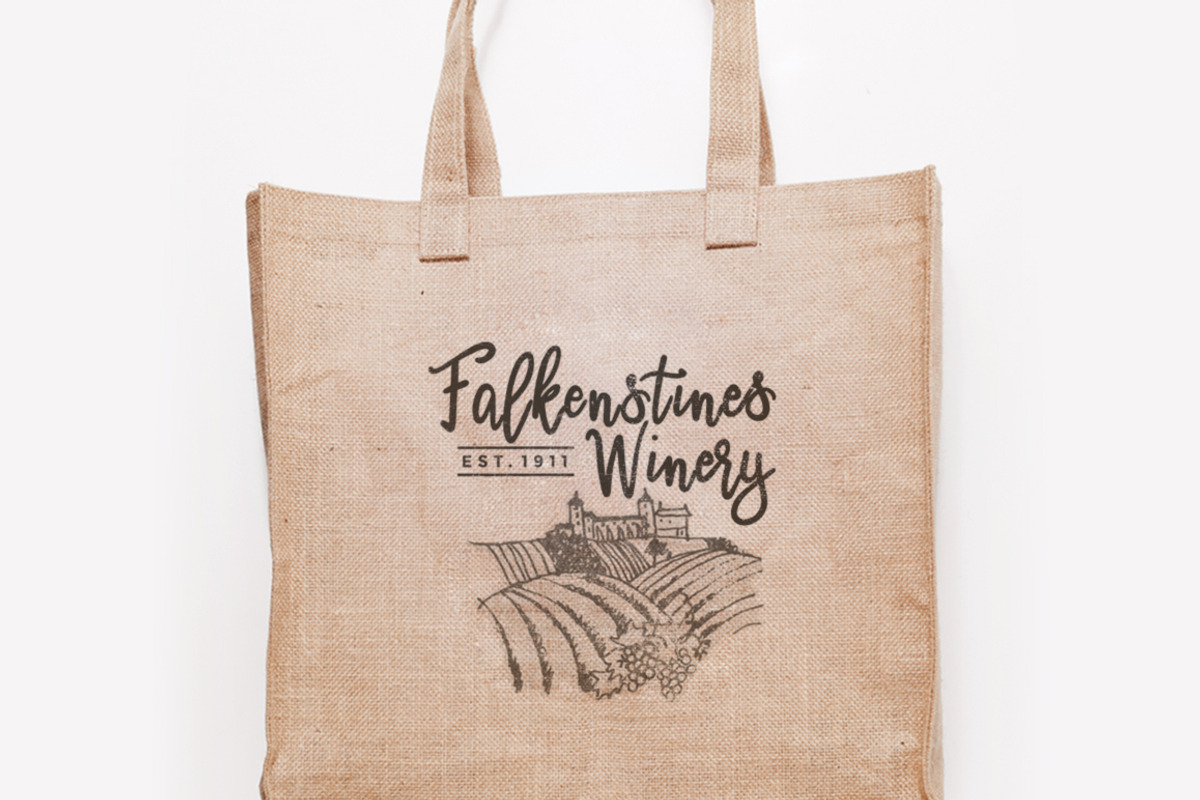
Swanlake Script
Introducing the new Swanlake Script modern calligraphy hand-lettered font! This fancy, bouncy, script font is what you've been waiting for to make your life easier and your projects get done faster! :) Its flow and form makes it easy to create logos with little to no effort (see Salvadora's Sign in this album). The sign artwork for instance is typed out straight from the keyboard without any need to adjust the letters. You can just type out a name and you instantly have a logo! It's so fluid and flows effortlessly from character to character. Also included are a ton of ligatures to make your work even easier. You will definitely love this one!